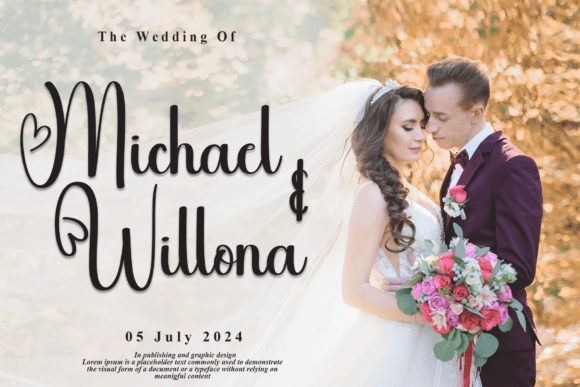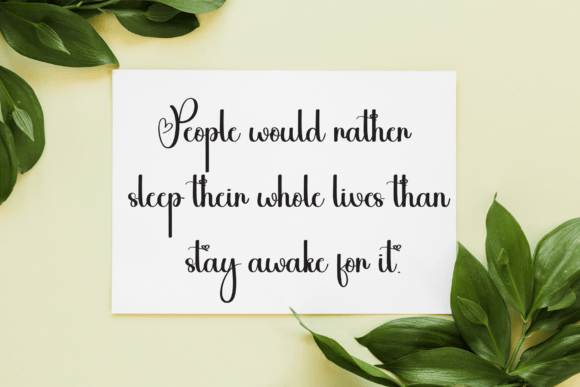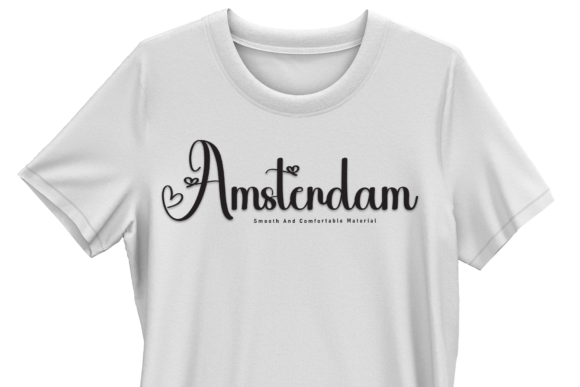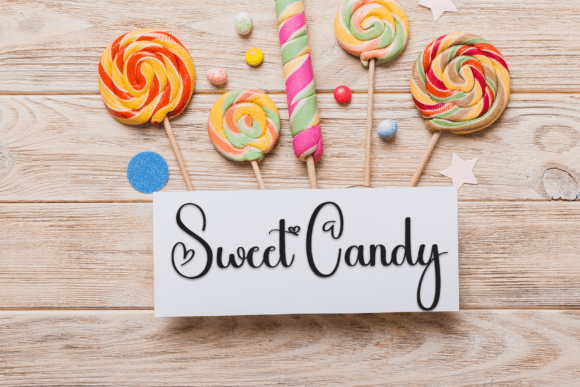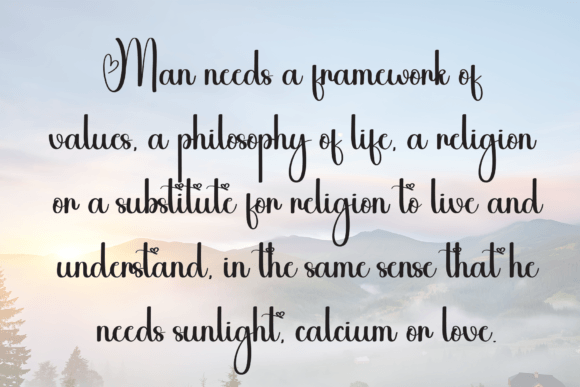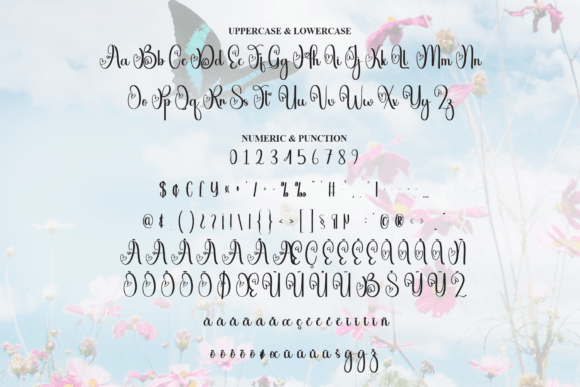
Introducing Butterfly Font: The Sweetest Addition to Your Design Arsenal
Have you ever been in the middle of a design project, and suddenly, you’re stuck on finding the perfect font? I recall a particularly frustrating experience while working on a wedding invitation project. My client wanted a font that was both elegant and playful, but I just couldn’t seem to find the right fit. That was until I stumbled upon the Butterfly Font, a charming and affable handwritten font that has since become a staple in my design toolkit.
I’m excited to share my honest review of the Butterfly Font, and here’s what I think:
- ✨ Sweet and playful personality: This font is perfect for designs that require a touch of whimsy and fun.
- ✅ Elegant and sophisticated: Despite its playful nature, the Butterfly Font exudes a sense of sophistication, making it suitable for wedding invitations, greeting cards, and more.
- 🌈 Versatile and adaptable: This font works beautifully in various design contexts, from digital to print.
Now, I’m not going to sugarcoat it – there are a few quirks to be aware of:
- 🤔 Limited use of uppercase letters: While the font does have uppercase letters, they’re best used sparingly to maintain visual balance.
- ⚠️ Requires careful kerning: As with any script font, kerning can be a bit tricky. Be sure to adjust the letter spacing to achieve the desired look.
- Experiment with the font’s OpenType features, such as stylistic alternates, to add visual interest.
The Butterfly Font was designed with the intention of creating a beautiful, handwritten font that exudes warmth and playfulness. The designer aimed to craft a font that would be perfect for designs that require a touch of whimsy and fun, while still maintaining a level of sophistication. The result is a font that is both elegant and playful, making it suitable for a wide range of design applications.
Q: What type of designs is the Butterfly Font best suited for?
A: The Butterfly Font is perfect for designs that require a touch of whimsy and fun, such as wedding invitations, greeting cards, and other creative projects.
Q: Is the Butterfly Font available in different weights or styles?
A: The Butterfly Font is available in a single weight, but it does feature stylistic alternates and OpenType features that allow for some variation in the design.